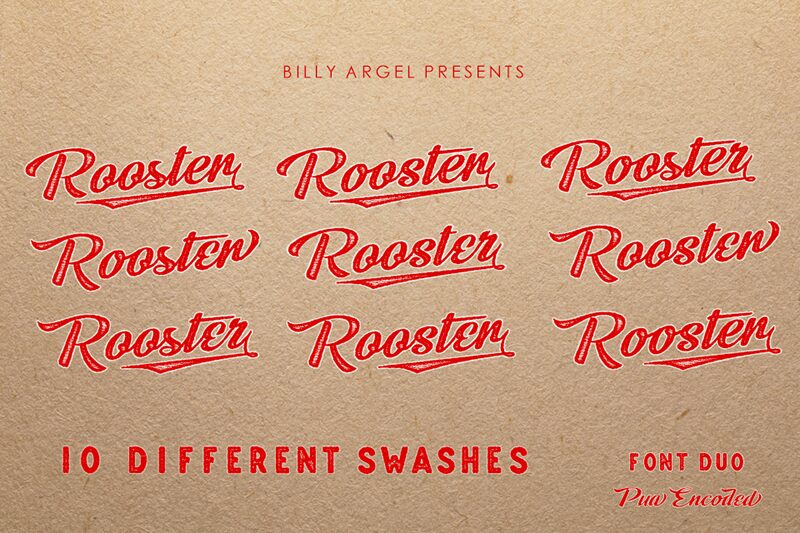
Rooster Roots is a stunning handwritten font designed by Billy Argel Fonts, perfect for any project that requires a touch of vintage charm and a hint of edginess. This font boasts an eroded look, giving it an authentic feel that's ideal for designs with an old-school vibe. With its semi-bold typeface and unique styling, Rooster Roots is perfect for anything from posters to logos to social media graphics. Whether you're designing for a retro clothing brand or creating promotional materials for a craft beer festival, this versatile font will add character and personality to your project.
Four fonts!
Font DUO, PUA encoded.